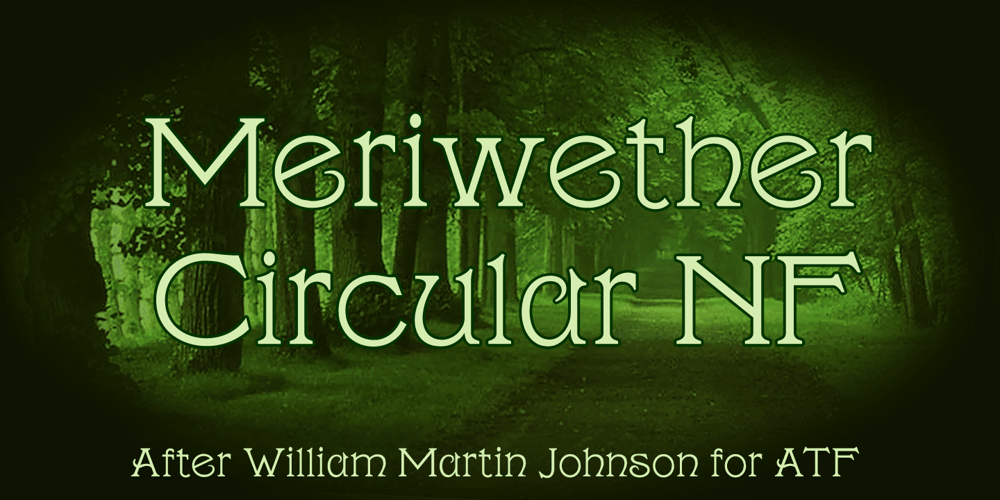
Meriwether Circular NF Font Family was designed by Nick Curtis, William Martin Johnson and published by Nick’s Fonts. Meriwether Circular NF contains 1 styles and family package options. The face exudes Edwardian elegance, based on a 1905 release from American Type Founders called Meriontype. It’s evocative of simpler times. Both versions of this font support the Latin 1252, Central European 1250, Turkish 1254 and Baltic 1257 codepages.